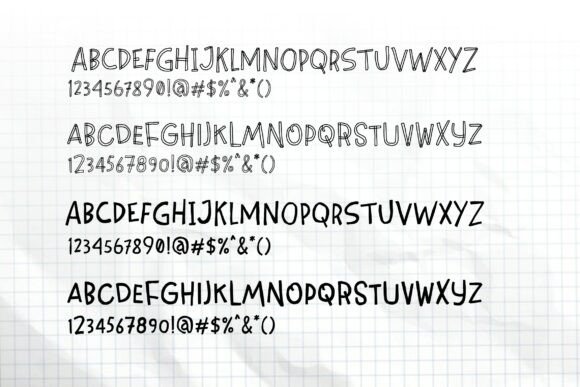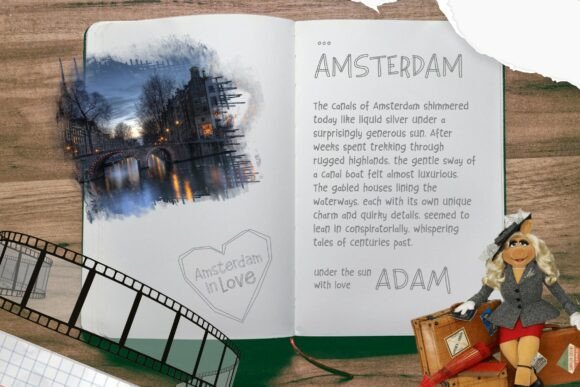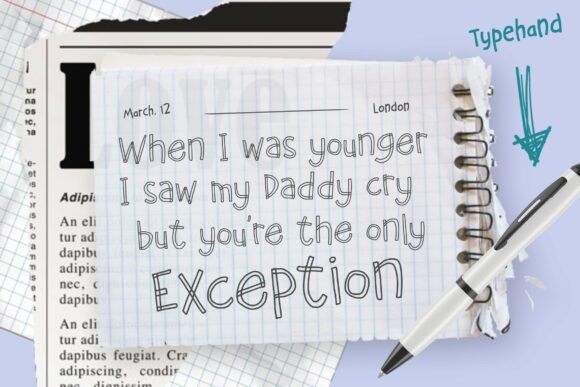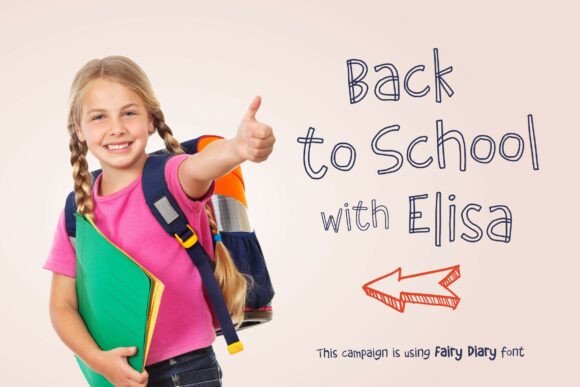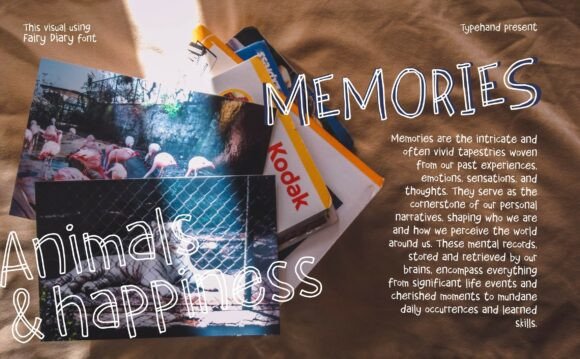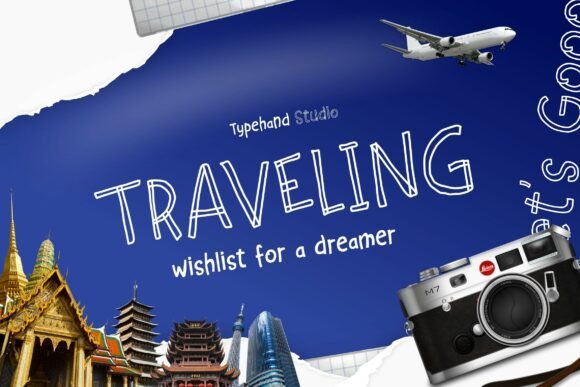
Fairy Dairy Font: Add a Touch of Whimsy to Your Designs
Are you looking for a font that can add a playful and personal touch to your projects? Look no further than the Fairy Dairy Font! This delightful handwritten font is inspired by journals, school notes, and everyday creative moments, making it perfect for designers and crafters who want to infuse their work with warmth and personality.
What Makes Fairy Dairy Font Unique?
Fairy Dairy Font is a playful handwritten font that stands out from the crowd due to its naturally imperfect handwritten rhythm and friendly character style. The soft monoline strokes and sketch-like outline details give it a cheerful and approachable feel, making it ideal for projects that require a personal touch. The rounded forms and casual flow of the font create a playful and expressive feel without sacrificing readability.
Key Features of Fairy Dairy Font
- Handwritten Display Font: Fairy Dairy Font is a handwritten display font that brings a touch of whimsy to any project.
- Soft Monoline Strokes: The font features soft monoline strokes that give it a smooth and fluid feel.
- Sketch-like Outline Details: The sketch-like outline details add a playful and creative touch to the font.
- Available in Outline and Filled Styles: Fairy Dairy Font is available in both outline and filled styles, making it versatile for various design applications.
- Uppercase, Lowercase, Numerals, and Punctuation: The font includes uppercase, lowercase, numerals, and punctuation, making it a comprehensive font for designers.
Fairy Dairy Font is perfect for a wide range of creative projects, including:
- Scrapbook Layouts: Add a personal touch to your scrapbook layouts with this playful font.
- Classroom Materials: Use Fairy Dairy Font to create engaging and interactive classroom materials.
- Diary Titles: Create beautiful diary titles that reflect the personality of the writer.
- Planners: Add a touch of whimsy to your planners with this delightful font.
- Stationery: Create personalized stationery that reflects your unique style.
- School Projects: Use Fairy Dairy Font to add a creative touch to school projects.
- Kids-Themed Branding: Create fun and engaging branding for kids-themed products.
- Posters: Use Fairy Dairy Font to create eye-catching posters that grab attention.
- Memory Books: Create beautiful memory books that reflect your personality.
- Social Media Graphics: Add a playful touch to your social media graphics with this font.
- Playful Packaging: Use Fairy Dairy Font to create playful packaging that stands out.
Why Choose Fairy Dairy Font?
Fairy Dairy Font is a great choice for designers and crafters who want to add a personal touch to their projects. Here are some reasons why:
- Unique and Playful: The font has a unique and playful feel that sets it apart from other fonts.
- Easy to Read: Despite its playful feel, Fairy Dairy Font is easy to read and understand.
- Versatile: The font is available in both outline and filled styles, making it versatile for various design applications.
- Comprehensive: Fairy Dairy Font includes uppercase, lowercase, numerals, and punctuation, making it a comprehensive font for designers.
In conclusion, Fairy Dairy Font is a delightful handwritten font that can add a touch of whimsy to any project. Its unique and playful feel, combined with its versatility and comprehensiveness, make it a great choice for designers and crafters. Whether you’re creating scrapbook layouts, classroom materials, or playful packaging, Fairy Dairy Font is sure to bring a smile to your face and a personal touch to your designs.